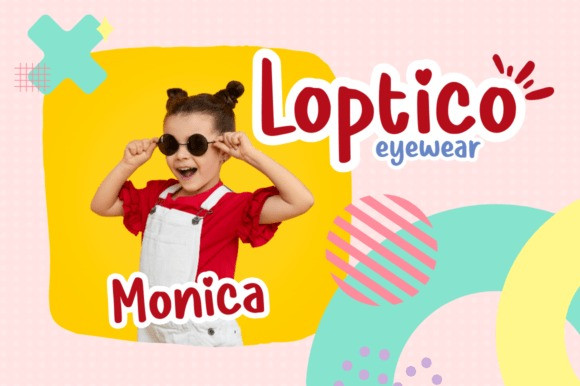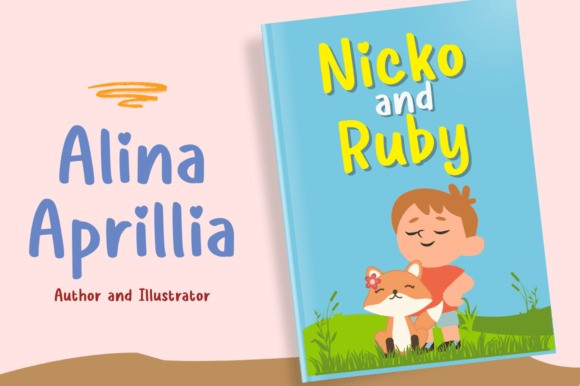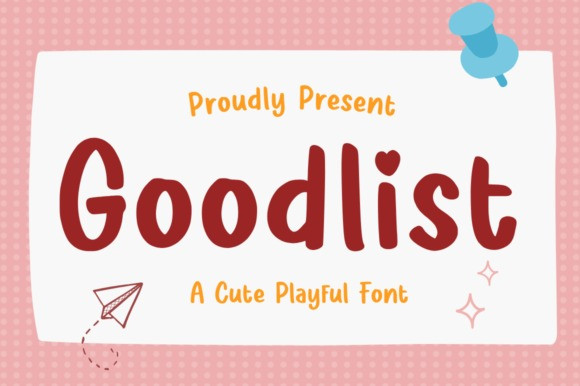
Goodlist Font
Goodlist Font a font bursting with cuteness and playfulness. With its charming and whimsical letterforms, this font adds a delightful touch to any project. Perfect for children’s books, greeting cards, or fun branding materials. “Goodlist” brings a cheerful vibe to your designs, spreading smiles wherever it’s used.